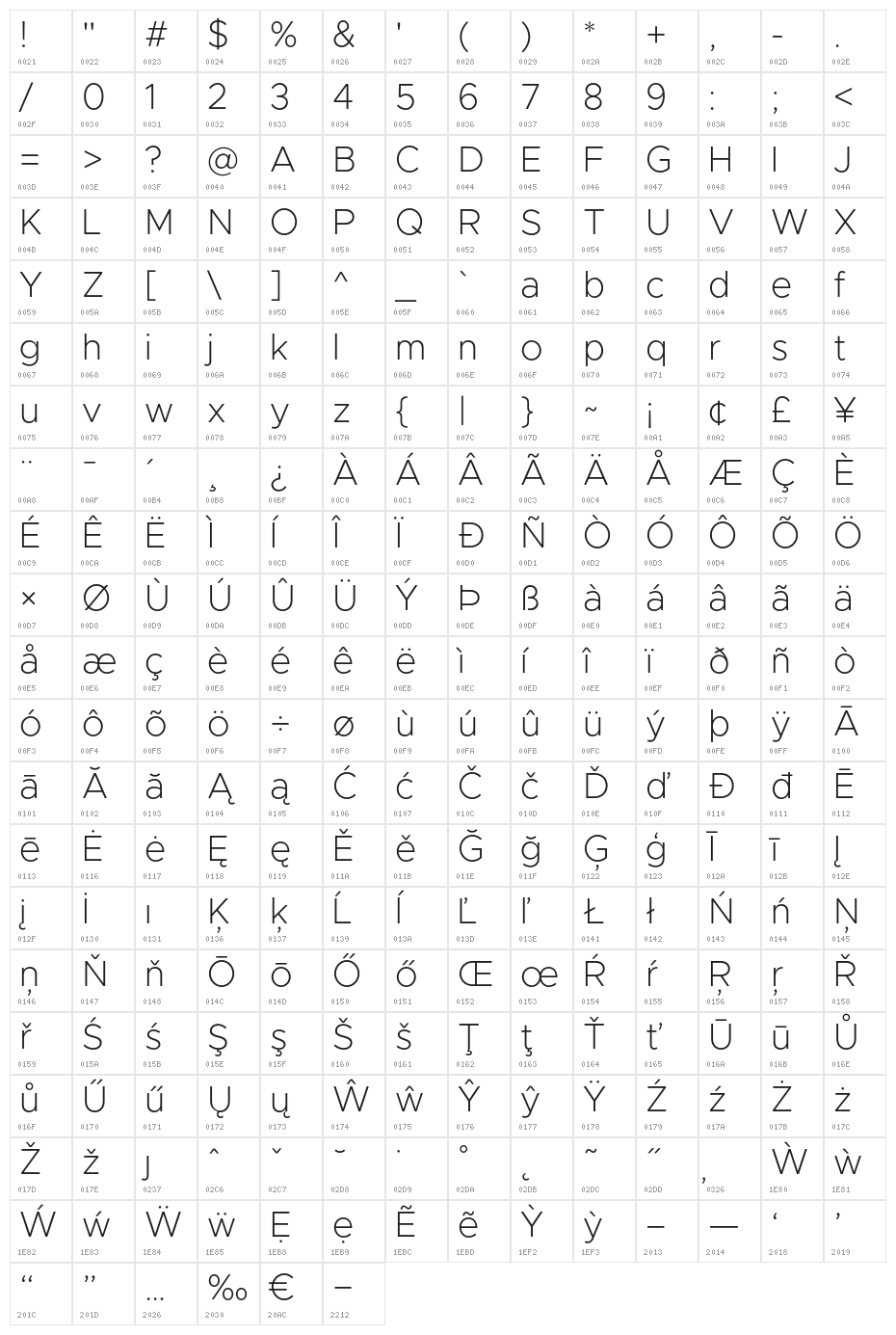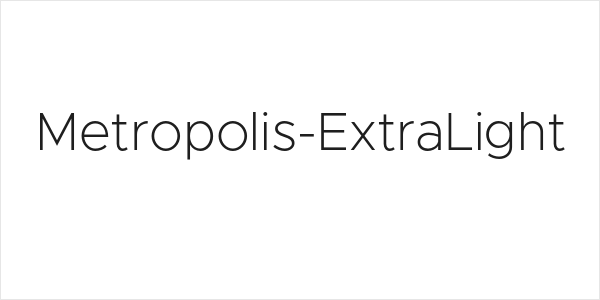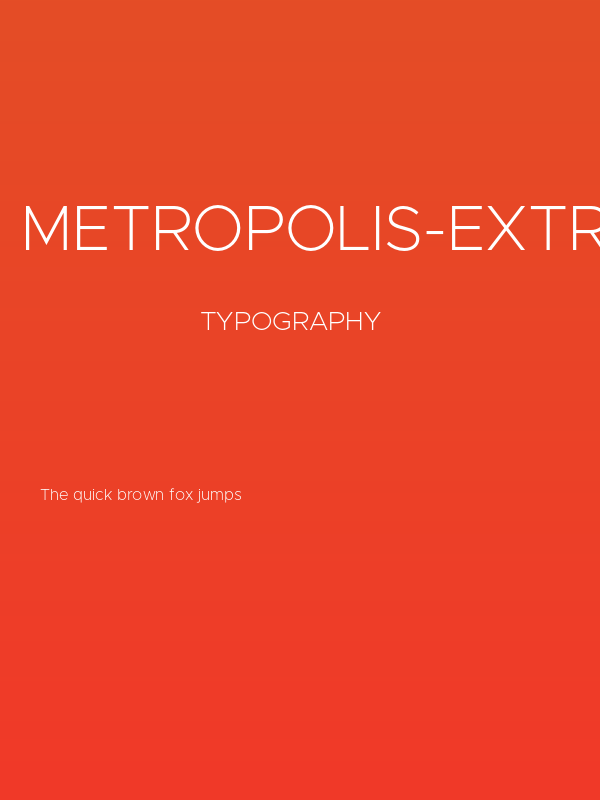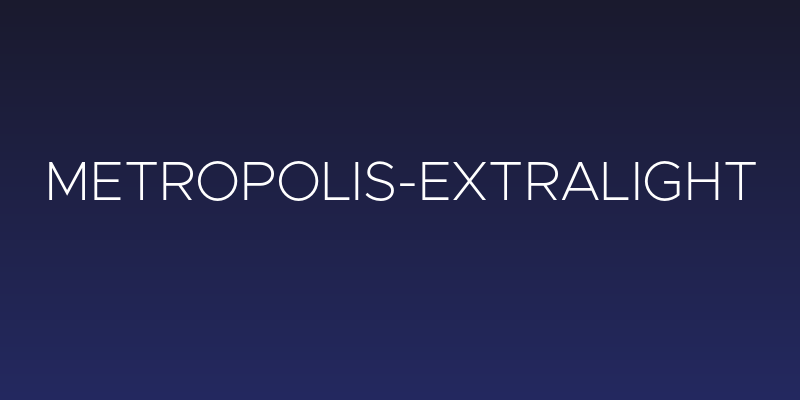
Metropolis-ExtraLight Font
Metropolis-ExtraLight Description
This typeface presents a clean and modern aesthetic with its geometric sans-serif design. The characters are crafted with precision, featuring uniform stroke widths that contribute to a harmonious and balanced appearance. The uppercase letters are bold and assertive, while the lowercase letters maintain a friendly and approachable demeanor. The numerals are clear and easily distinguishable, making them suitable for a variety of applications. Special characters are well-integrated, ensuring consistency across the entire set. This font's simplicity and elegance make it versatile for both digital and print media.